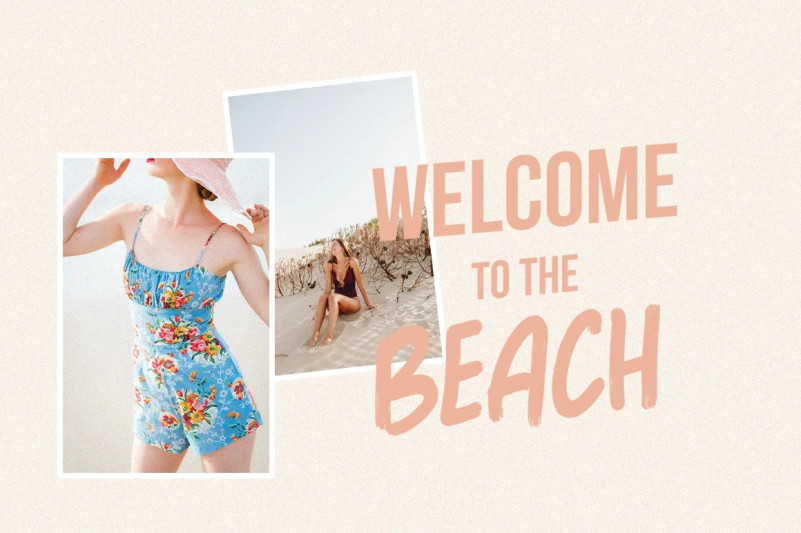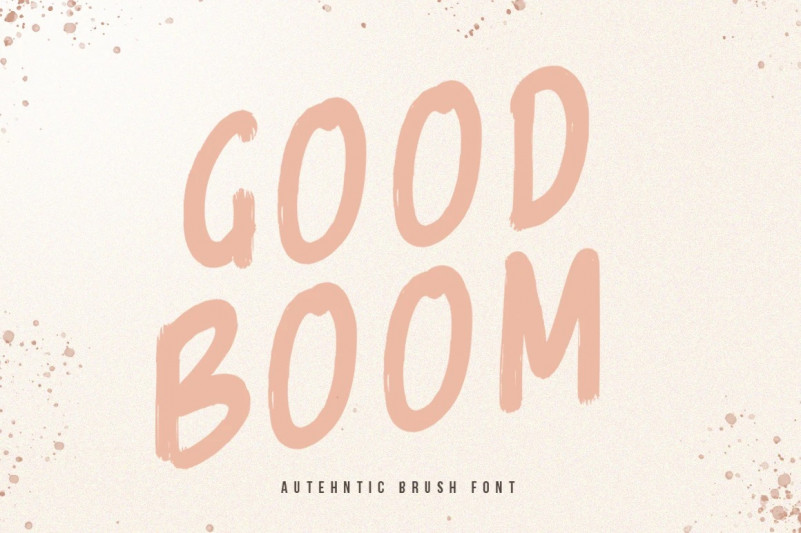
Goodboom Brush Font
Goodboom is a authentic brush font, perfect for creating beautiful logos, signage, social media, blog posts, styled quotes, packaging, and more! Goodboom is free-spirited and carefree + handcrafted with lots of love for your beautiful projects